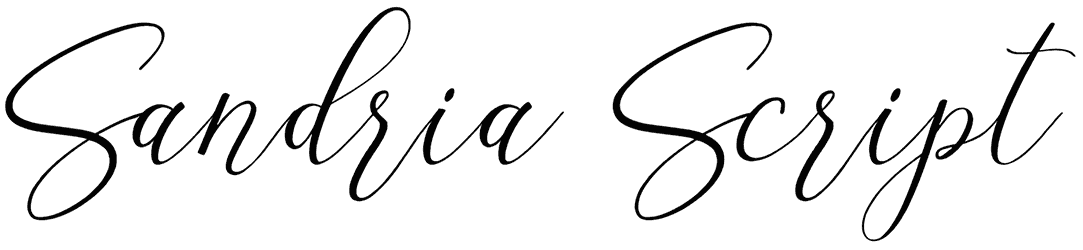
Sandria Script Font
It does not matter if it is for a professional design or a nonofficial one, Sandria Script can get your work done in the best way possible. The ornate and graceful face of this fast handwritten font will add a luxurious and noble mood to your text. Try Sandria Script out for your coming projects, such as logotypes, flyers, fashion designs, and more.